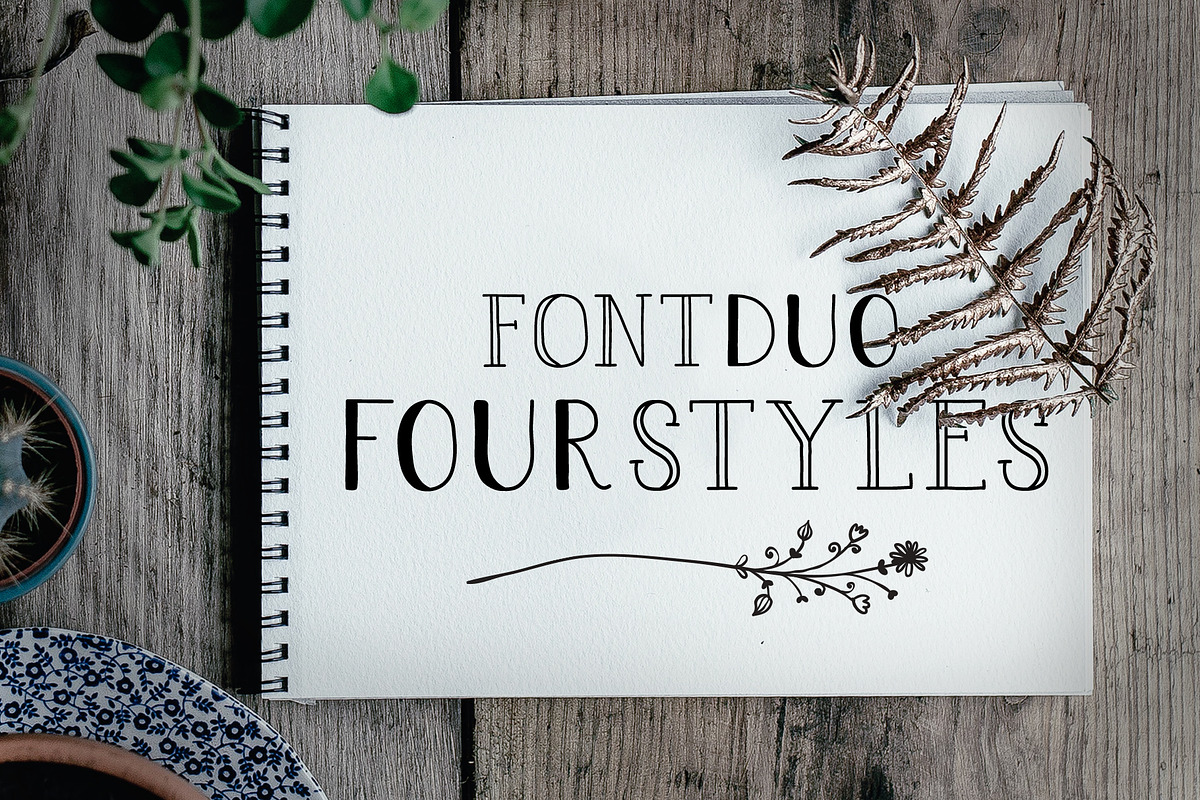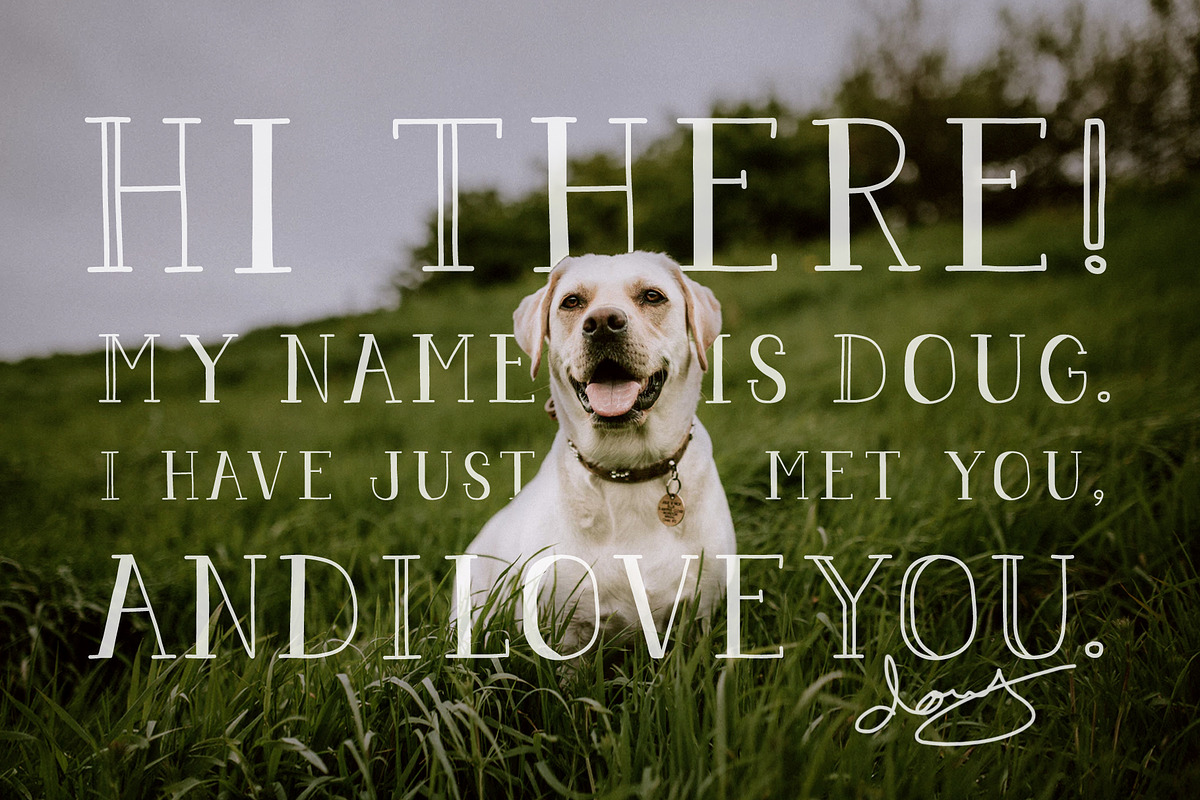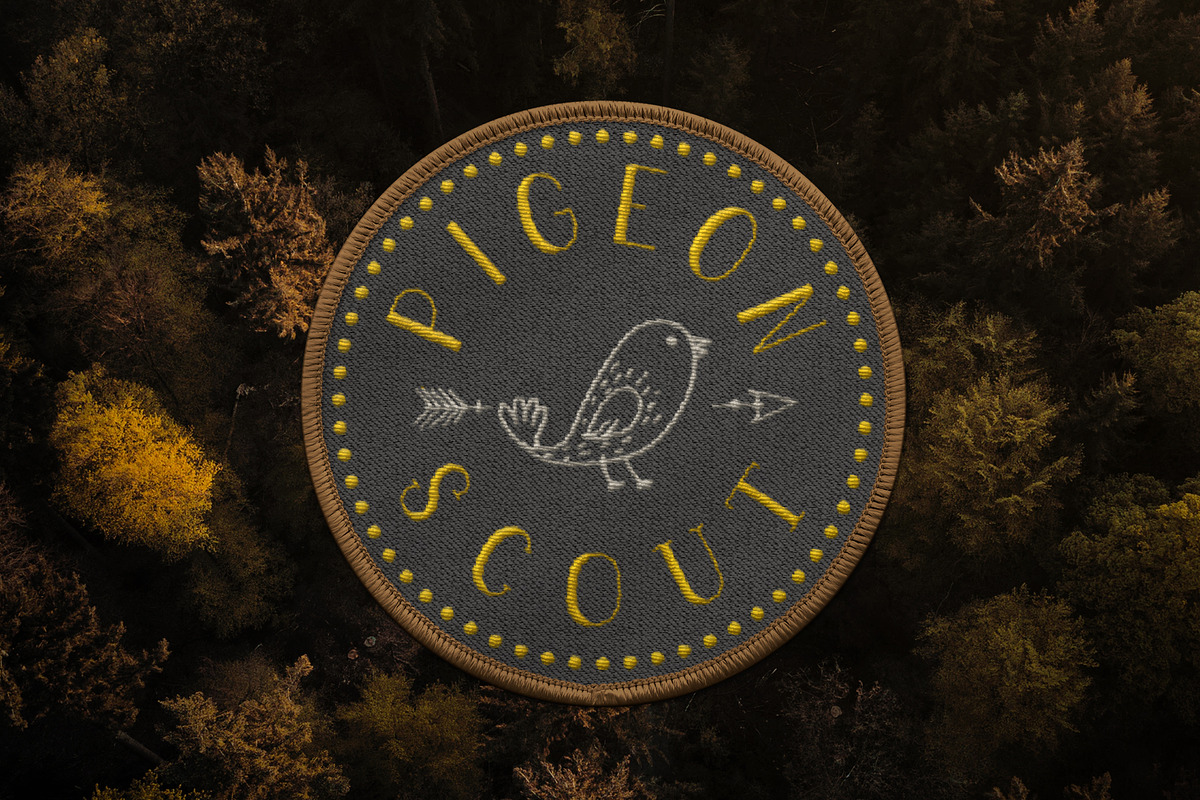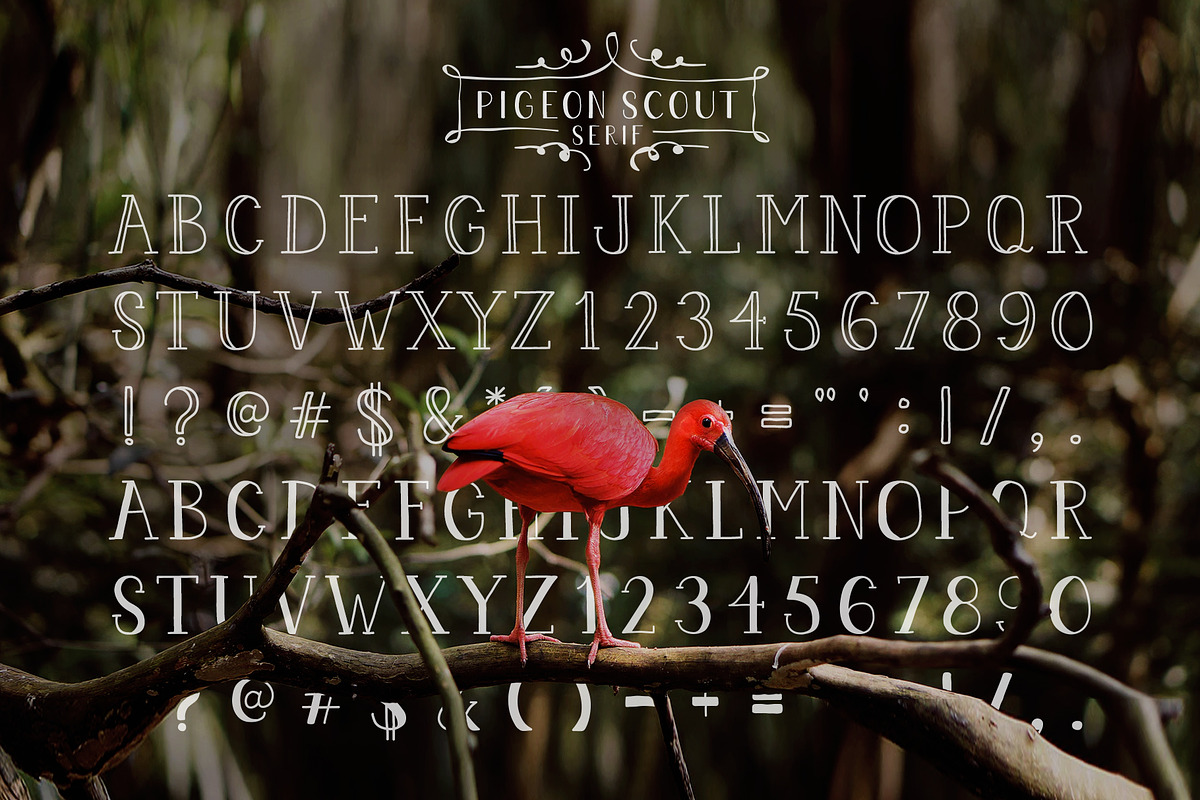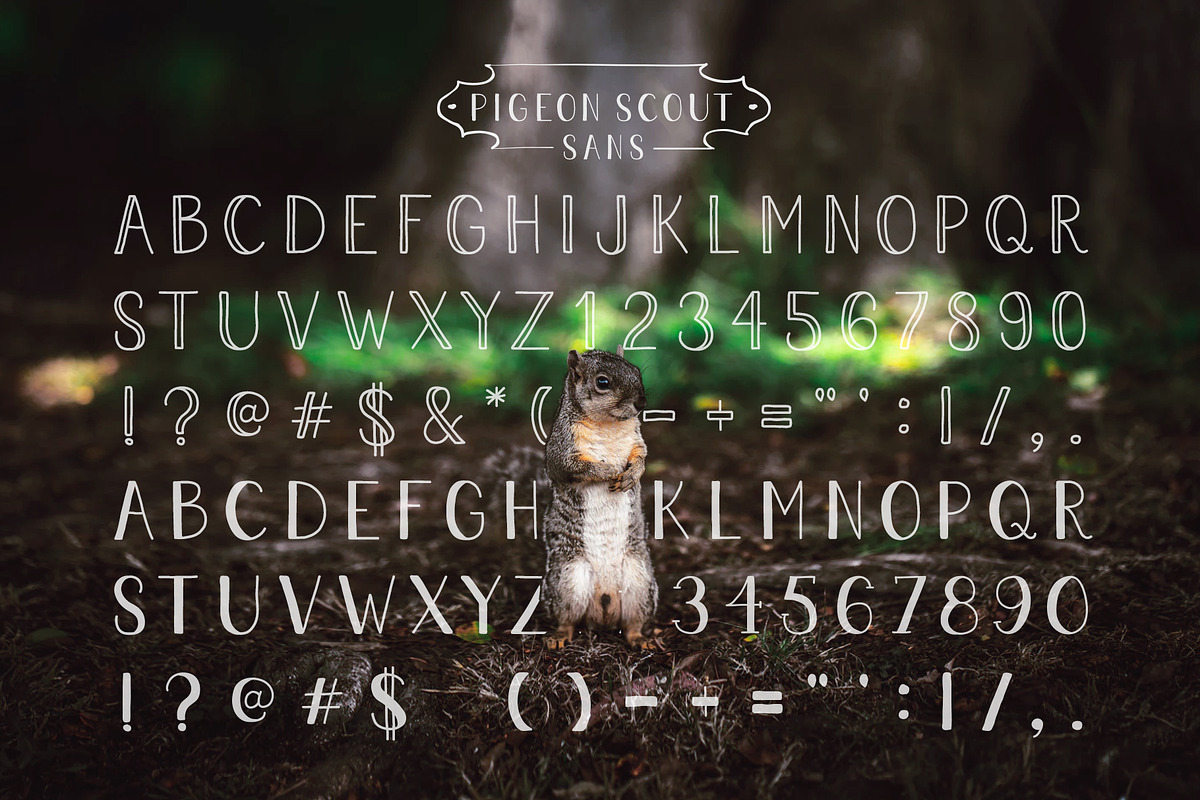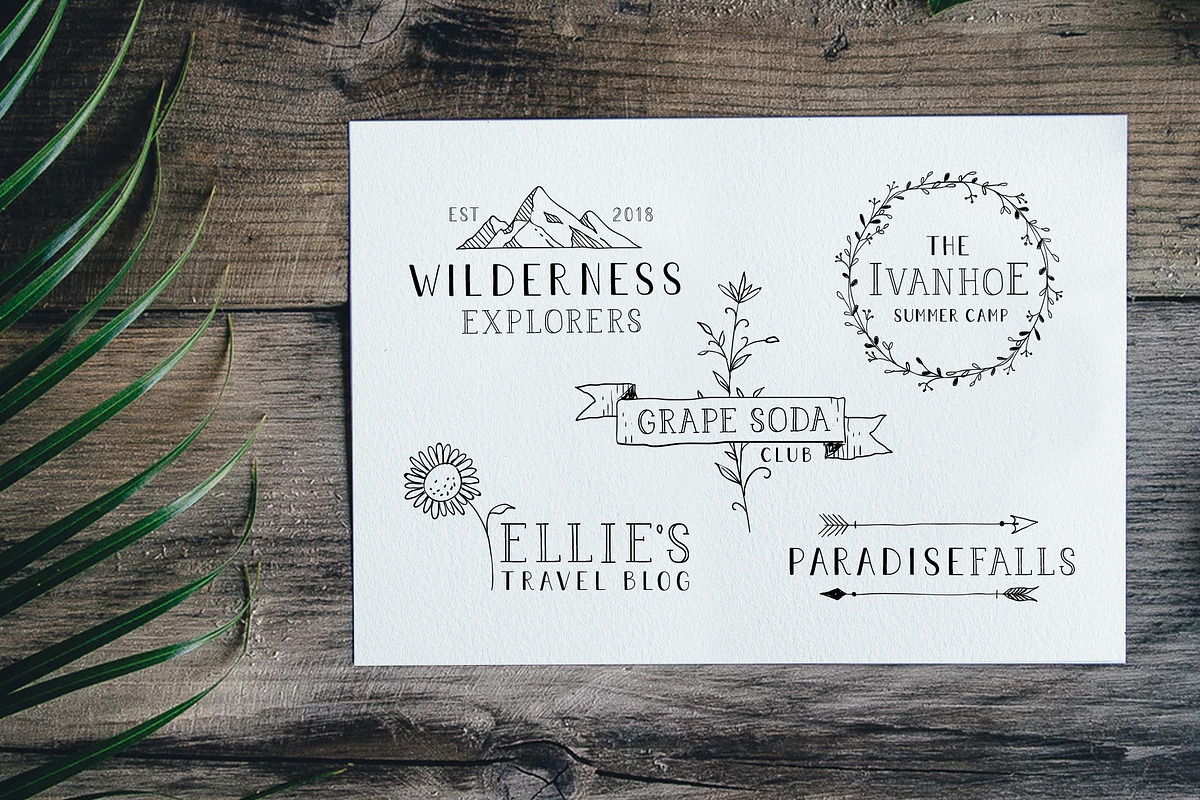
Pigeon Scout Font Collection
Pigeon Scout - Serif and Sans Serif Hand Lettered Font Duo
Pigeon Scout is a hand drawn font. All capital letters that comes in 4 styles - Serif, San Serif, Outlined, and Solid. Along with numbers and symbols.
This font is perfect for rustic, outdoor, and nursery themed designs. It also works great when used for hand drawn logo designs.
Outlined version of the font is in uppercase when typing, while the solid version is in lowercase